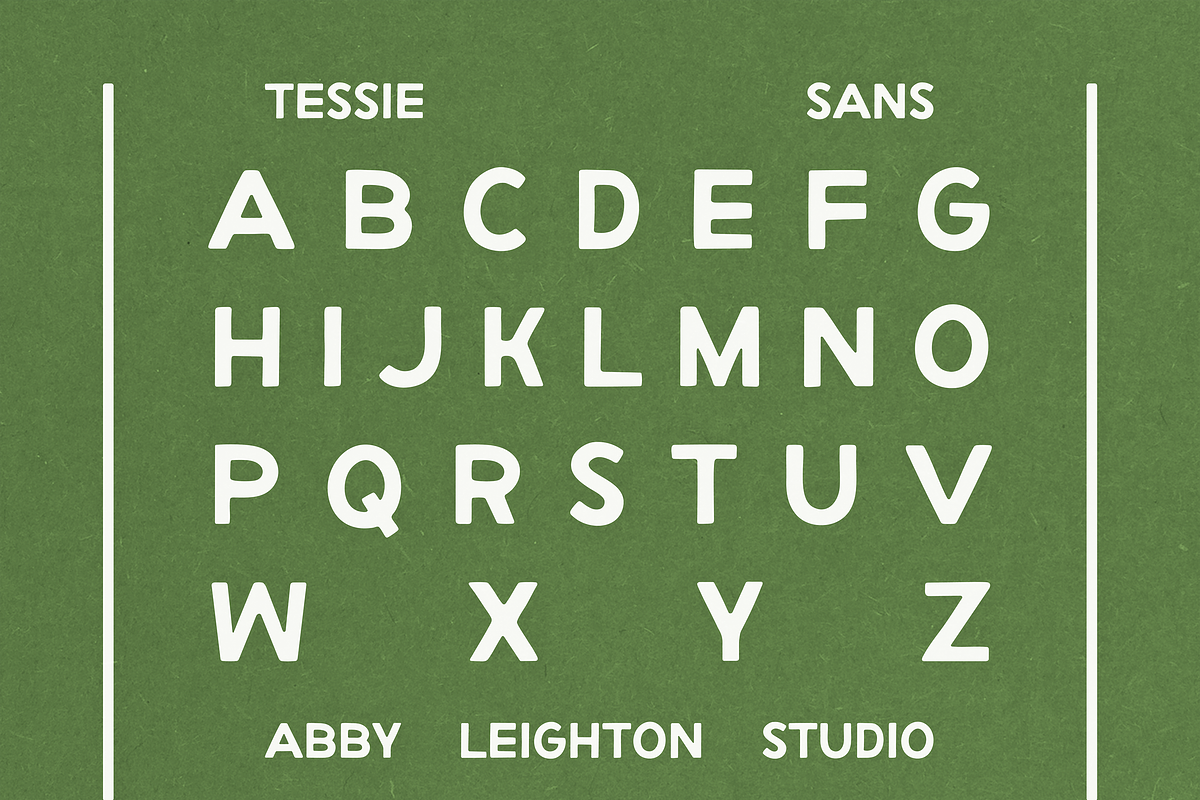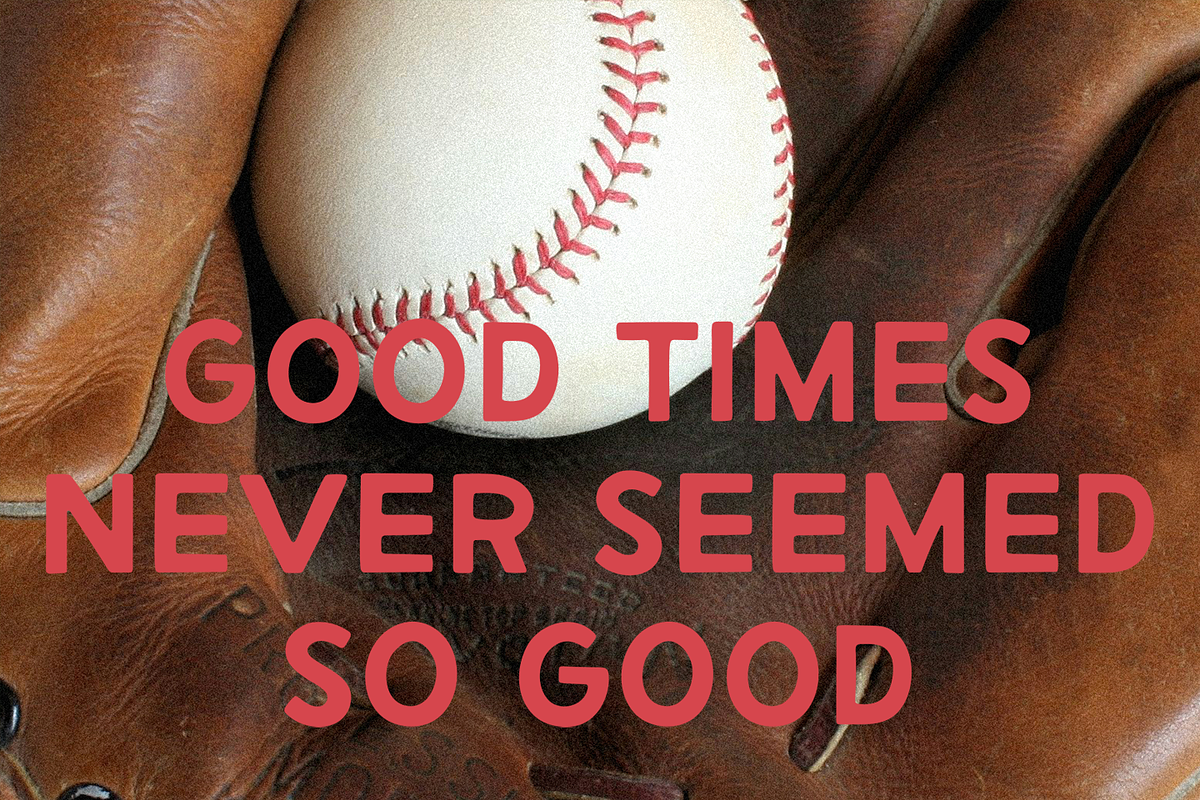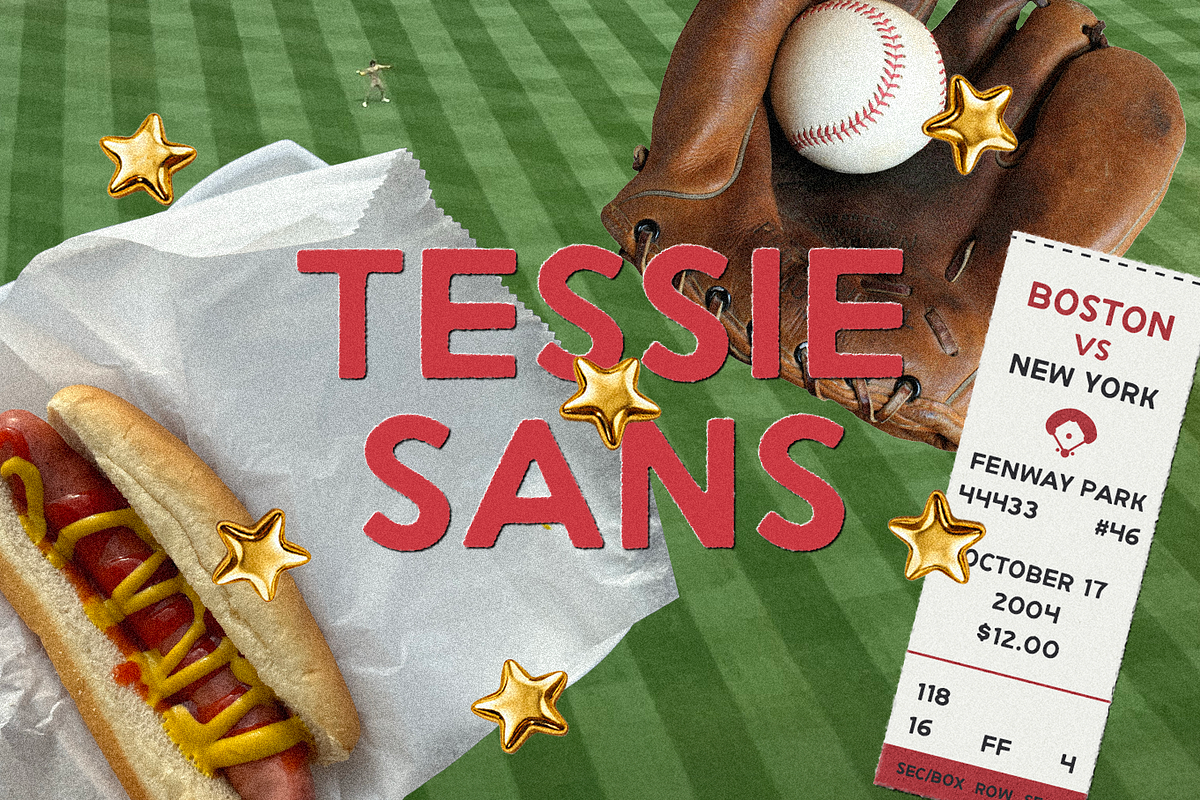
TESSIE SANS by Abby Leighton
Inspired by vintage baseball typography, Tessie Sans is the (im)perfect versatile handmade blocky sans serif for your next project.